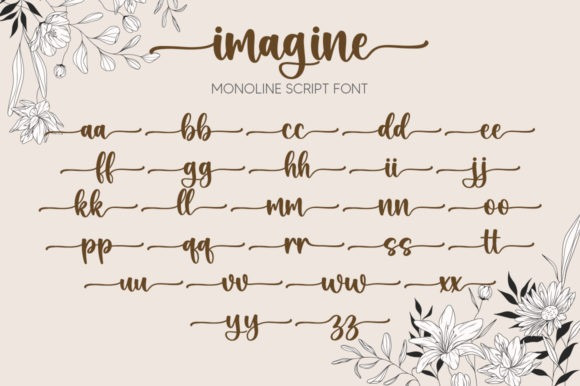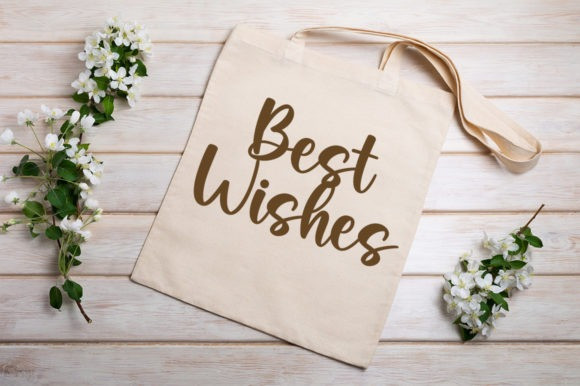
Imagine Typeface
Imagine Typeface is a lovely and timeless handwritten font. It is the best choice for creating eye catching logos, branding and quotes. Imagine is PUA encoded which means you can access all of the glyphs and swashes with ease!